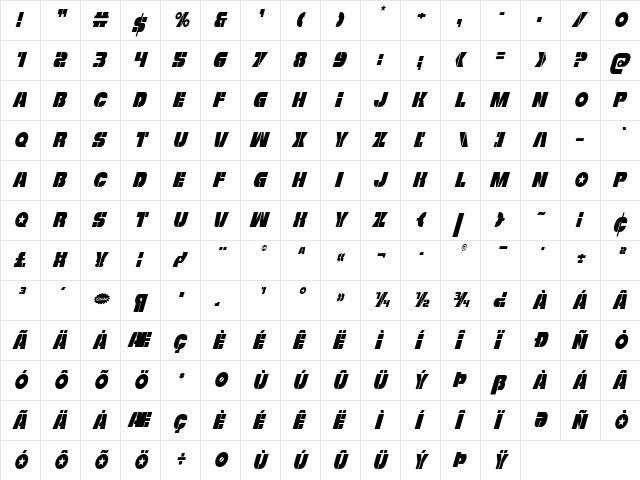
Freedom Fighter Condensed Italic Font Preview
Design Context for Freedom Fighter Condensed Italic Typeface
Freedom Fighter Condensed Italic offers clean, dependable letterforms without strong stylistic allegiance, making it a practical choice for designers who need flexibility. Its italic angle brings a sense of urgency and motion to the letterforms. Its narrow stance lets it pack a punch even in space-constrained designs.
Pro Tip: Try Freedom Fighter Condensed Italic for annotation and caption copy alongside an upright companion — the contrast in angle creates a dynamic but ordered typographic system.